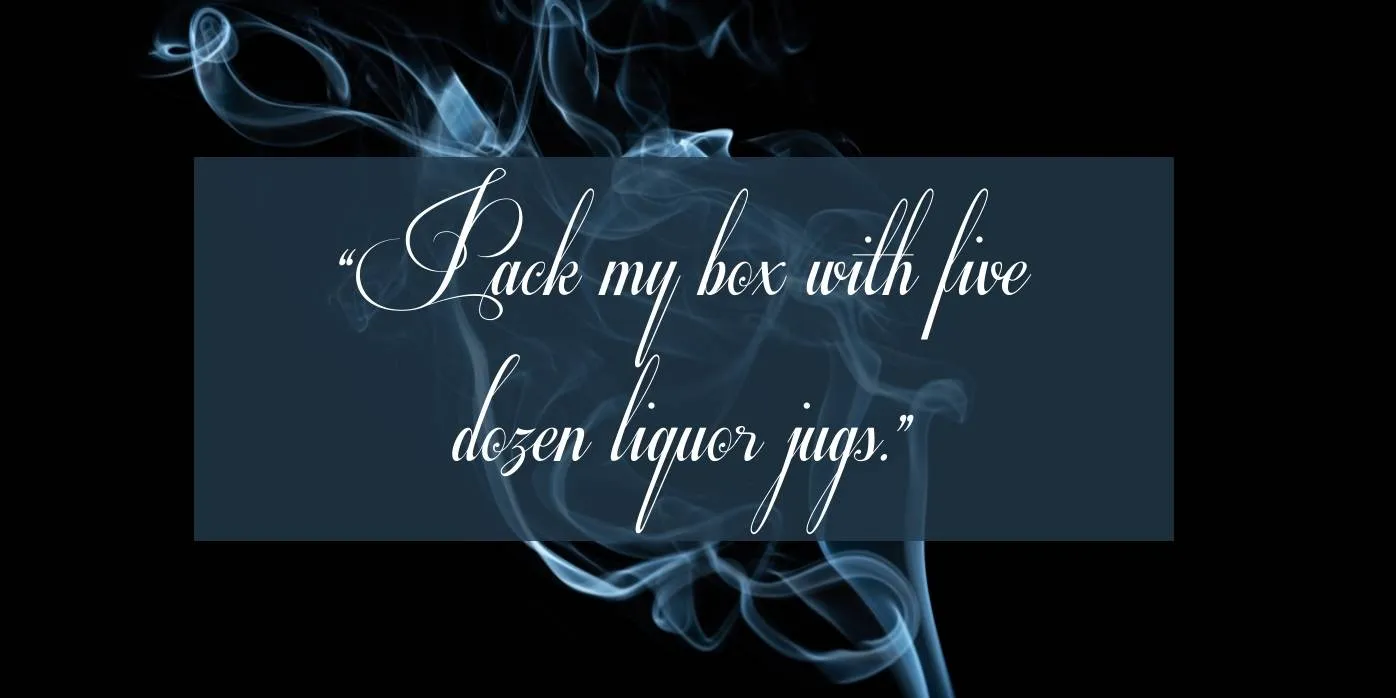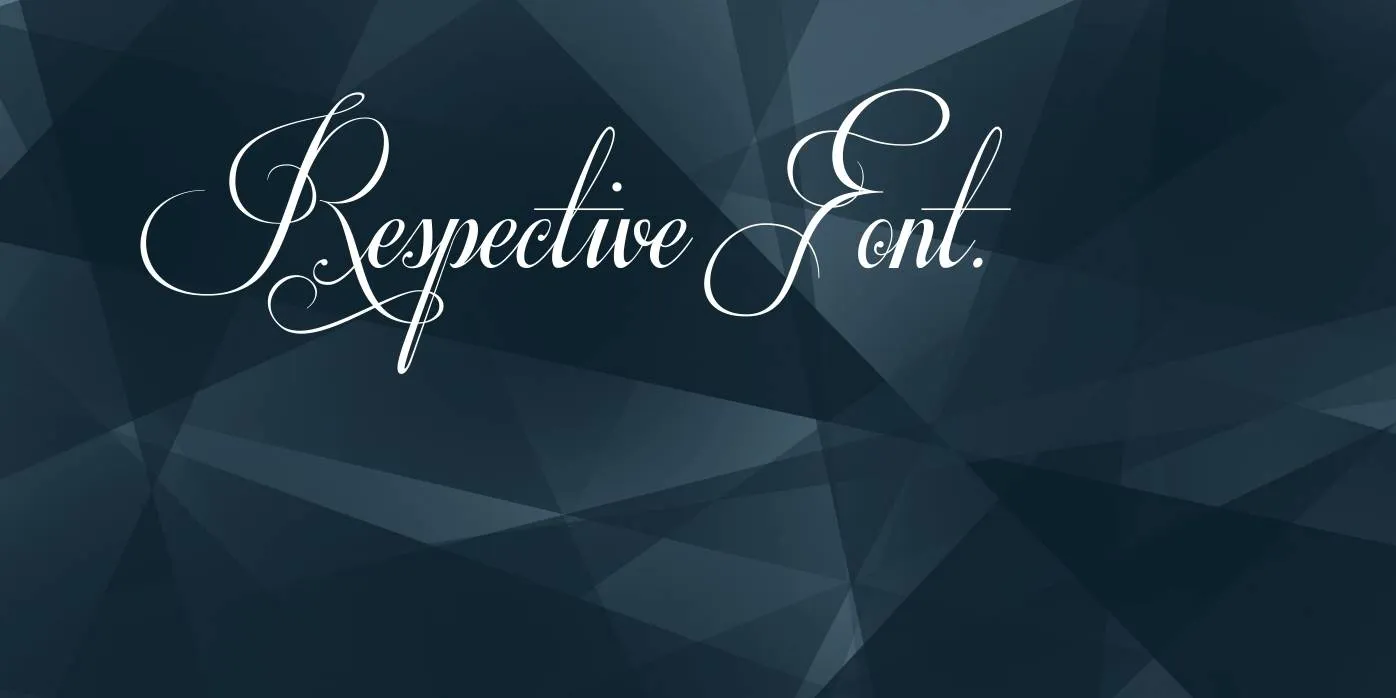
Respective Font
Respective Font is designed by Mans Greback. This typeface belongs to the calligraphy typeface. This stunning Font is a very beautiful and stylish font. This amazing Font is available in OTF format.
This classic typeface includes many unique Glyphs and OpenType features. this typeface looks best for your large sizes text. It comes in special styles and characters. Some of its characters are symbols, numerals, icons, and others.
This Font has a very stylish look. This amazing typeface is available on MyFonts. This typeface is best for MAC. This typeface is available in many styles.
This typeface is very famous because of its keen features. This typeface has clean textures. It has a very charming look. This typeface is perfect for your headlines, logos, and other creative designs.
Vivaldi Font is alternative to this cozy typeface. this typeface is best for your branding projects. This Font is suitable for any kind of project. This typeface is also perfect for web designing projects.